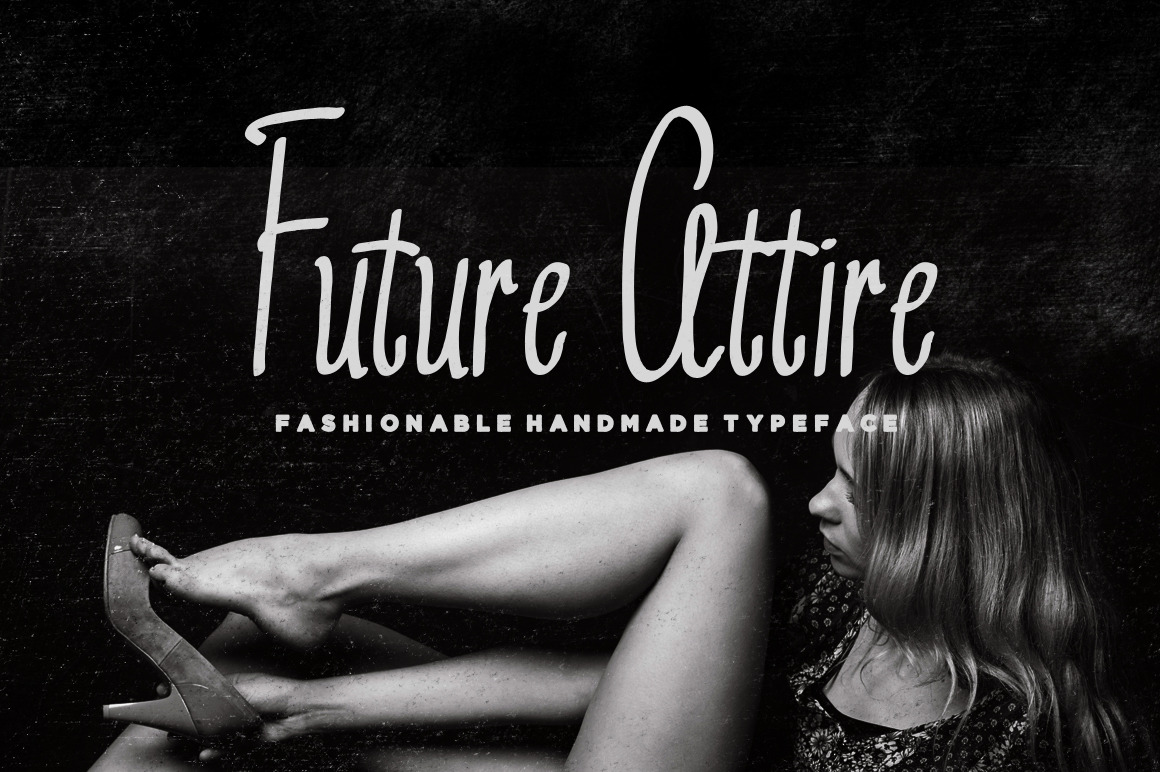
Future Attire is a handmade typeface using calligraphy brush and manually handstroked. Inspired by the fashion show poster and vintage handwritting that makes The Future Attire Typeface perfectly fit for your fashion branding sweeteners, look book, fashion show poster and all of your handcrafted projects presentations.